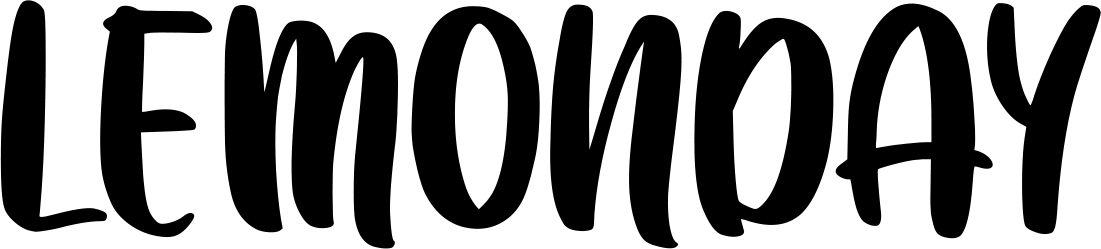
Lemonday Font
Lemonday is a playful, flexible, cheery font that falls under the cartoon font category. It lacks the numerals in the character collection but the lively letters made up for that.
If you want your projects to sound less formal and give them a dynamic, energetic air go with Lemonday! Cartoons, comic books, posters, print T-shirts, stationery, and greeting card design are some of the areas where Lemonday fits the bill!